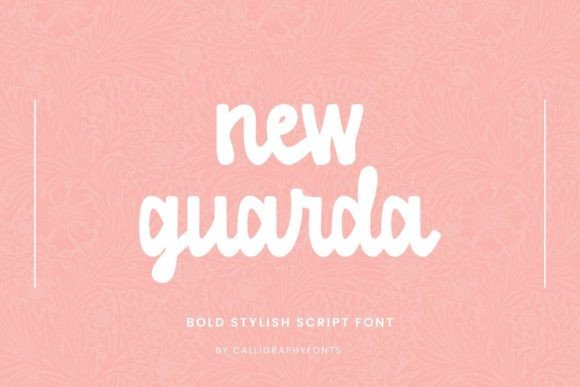
New Guarda: A Bold Handwriting Script for Modern Brands
In a digital landscape saturated with clean, geometric sans serifs, there’s a growing hunger for design elements that feel human, tactile, and authentic. Enter New Guarda, a bold handwriting script font that answers this call with striking confidence. It’s not merely a typeface; it’s a statement piece. With its thick, assertive strokes and the unmistakable rhythm of a skilled hand, New Guarda bridges the gap between raw, expressive energy and polished sophistication. For designers and entrepreneurs, it offers a powerful tool to inject personality and warmth into any project, ensuring your message isn't just seen, but felt.
The Anatomy of Authority: What Makes New Guarda Stand Out
At first glance, New Guarda commands attention. This isn't a delicate, whispering script. Its defining characteristic is its bold, brushed quality—each letterform carries weight and presence, built from strokes that mimic the pressure and flow of a thick marker or brush pen. The result is a handwriting look that feels confident and contemporary, avoiding the overly ornate or fussy traps of some traditional scripts. The slightly uneven baseline and natural connections between letters reinforce its handmade authenticity, while the overall consistency in its bold weight ensures it remains a highly readable and functional display font.
The personality of New Guarda is one of approachable elegance. It exudes a boutique charm that feels both luxurious and inviting. This duality makes it incredibly versatile. It can feel playful and energetic for a cosmetics brand, yet simultaneously sophisticated and trustworthy for a wedding organizer. Its visual rhythm creates a sense of movement, guiding the eye naturally across headlines and logos. As a premium font, it’s crafted with attention to detail in its letter spacing and kerning, ensuring that even at large sizes, the flow between characters feels intentional and aesthetically pleasing.
From Packaging to Pixels: Real-World Applications
The true test of any creative font is its application. Where does a typeface like New Guarda truly shine? Its strength lies in projects where brand identity and emotional connection are paramount.
In branding and logo design, New Guarda can become the cornerstone of a memorable identity. Imagine it anchoring the logo for a high-end florist, a artisanal skincare line, or a boutique homeware store. The script’s inherent elegance communicates quality and care, while its boldness ensures the brand name is instantly recognizable. For packaging design, particularly in cosmetics, gourmet foods, or luxury goods, it adds a layer of perceived craftsmanship and premium value.
For publishers and content creators, New Guarda is a secret weapon for editorial design. It makes for stunning book covers, especially in genres like contemporary romance, lifestyle guides, or memoirs. Used for chapter titles or pull quotes, it breaks the monotony of body text and injects personality into the page. In the digital realm, it transforms social media graphics and web design headers. A bold headline set in New Guarda on a website hero image or an Instagram story immediately sets a stylish, engaging tone that static text cannot match.
Beyond commercial use, it’s a fantastic asset for personal projects. It elevates wedding invitations, personalized stationery, and craft projects with a professional, artistic touch that feels genuinely special.
Strategic Font Pairing and Practical Considerations
Using a powerful script like New Guarda effectively requires some strategic thought, especially concerning font pairing and hierarchy. The key is balance. Because New Guarda is a bold, expressive handwritten font, it thrives when paired with a clean, neutral companion. A simple sans serif font for body text or subheadings creates a perfect visual counterpoint, allowing the script to capture attention without overwhelming the design. A minimalist serif font can also work beautifully for a more classic, editorial feel, pairing the modernity of the script with timeless typography.
Always consider readability. While New Guarda is designed for clarity, its best use is at larger sizes for headlines, titles, and short phrases. Avoid setting long paragraphs in it, as the dense, connected nature of script fonts can reduce legibility in body copy. Test your designs at various sizes to ensure the visual hierarchy is clear—the script should draw the eye to the most important message first.
When evaluating New Guarda for a project, review the included character set. Does it have the ligatures and alternates you need to customize the look? Finally, for any commercial application—whether it’s for a client’s logo, product packaging, or a paid publication—ensure you understand the commercial font licensing. Using a properly licensed font is a non-negotiable part of professional design assets management, protecting both you and your client.
In the end, New Guarda is more than just a typeface. It’s a strategic design choice for anyone looking to build a brand with heart, create marketing with soul, or produce content with undeniable style. It proves that in the world of modern typography, boldness and elegance can, and should, go hand in hand.